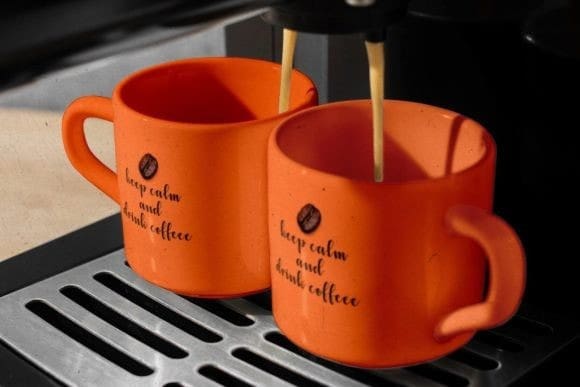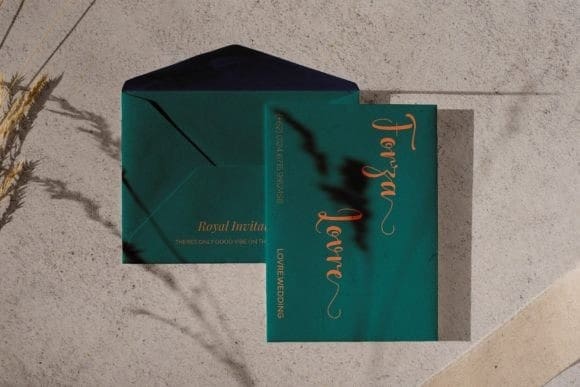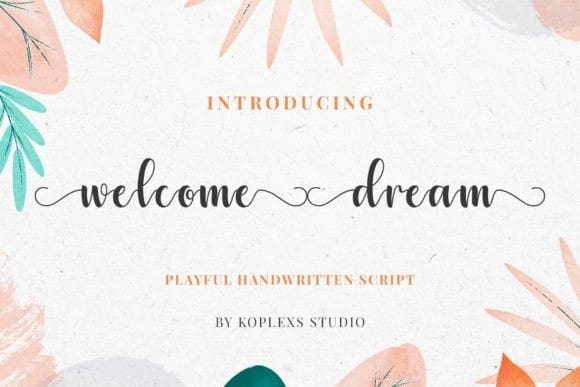
Welcome Dream Font
Welcome Dream Font, a captivating digital gem in the realm of typography – a Handwritten Script Font that effortlessly blends elegance with a touch of whimsy. This font isn’t just a tool; it’s an experience, meticulously crafted to add a dash of personality to your creative endeavors.
Each stroke of “Welcome Dream” reflects the artistry of hand-lettered scripts, giving your designs an authentic, human touch.
Elevate your projects with a plethora of alternate characters that seamlessly weave together, offering a myriad of design possibilities.
Enhance the fluidity of your text with carefully curated ligatures, ensuring a harmonious and visually stunning composition.
Infuse your logos and brand materials with a bespoke charm that sets you apart in the market.
Craft enchanting wedding invites that perfectly capture the essence of romance and celebration.
Elevate your social media presence with captivating posts and stories that reflect your unique aesthetic.
Print Perfection: Whether on posters, cards, or packaging, this font translates seamlessly from screen to print, maintaining its enchanting allure.